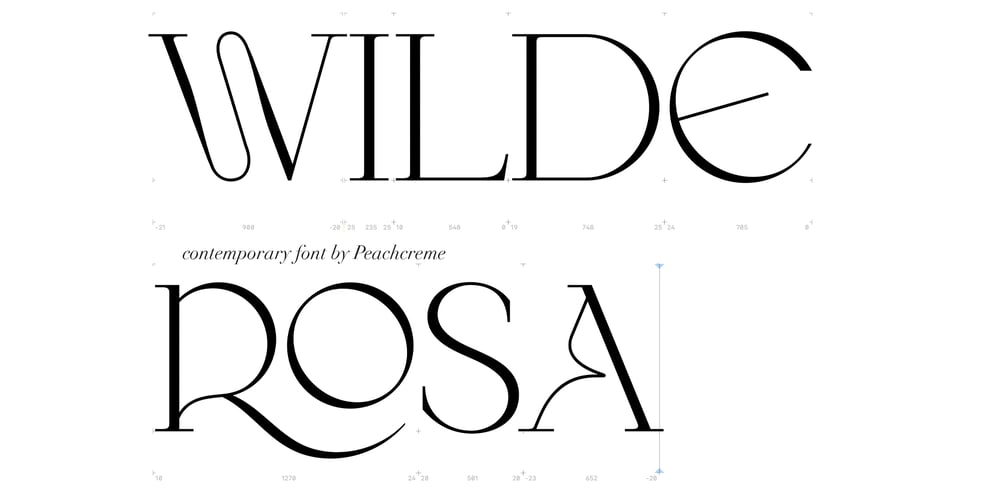
Wilde Rosa Font Family was designed by Gulya Yeap and published by PeachCreme. Wilde Rosa contains 1 styles and family package options. Say hello to our new contemporary all-caps font “Wilde Rosa”.Perfect for logos, magazine titles, this lovely font can be paired with clean sans serif. Wilde Rosa is designed to be used for large headings whether it be displayed on billboards, advertisements, or magazines.